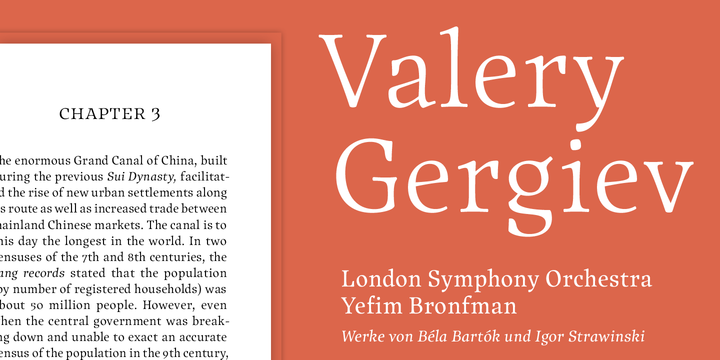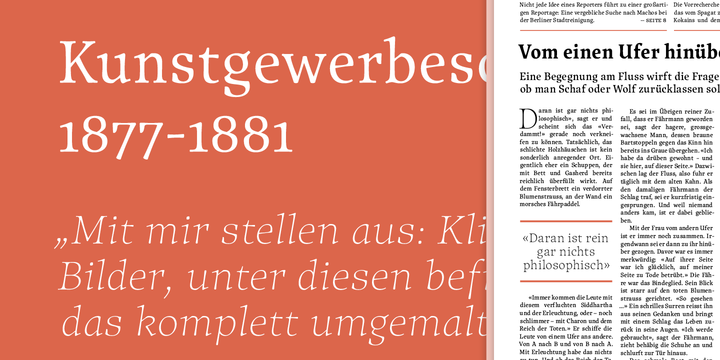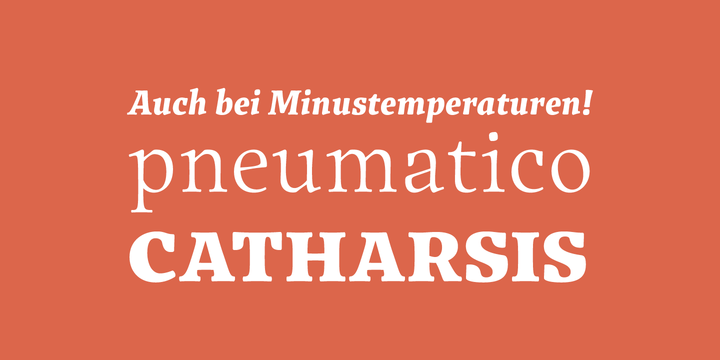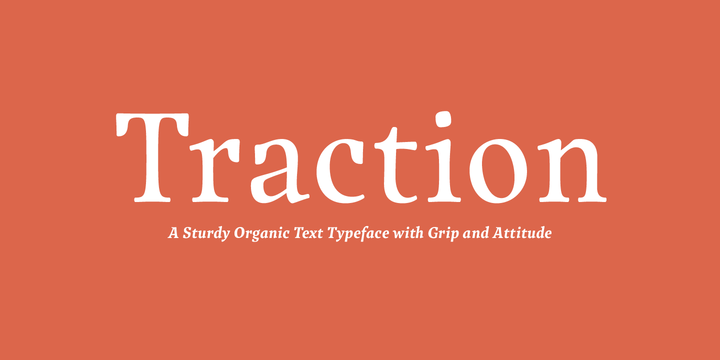
Traction was originally conceived and designed by Swiss astronomer Christian Thalmann. Schriftlabor designers Chiara Mattersdorfer and Miriam Surányi expanded, completed and produced the font family.
This typeface sports signature serifs, soft edges and a fluid, organic design.
Enlarged, the organic letters are reminiscent of the profiles of ­off-road tyres and hiking boots.
In text sizes, it is the humanistic forms that set the tone to ensure fluid legibility.
Totalling at 18 styles in nine weights, all fonts come with small capitals and all possible numerical variations.